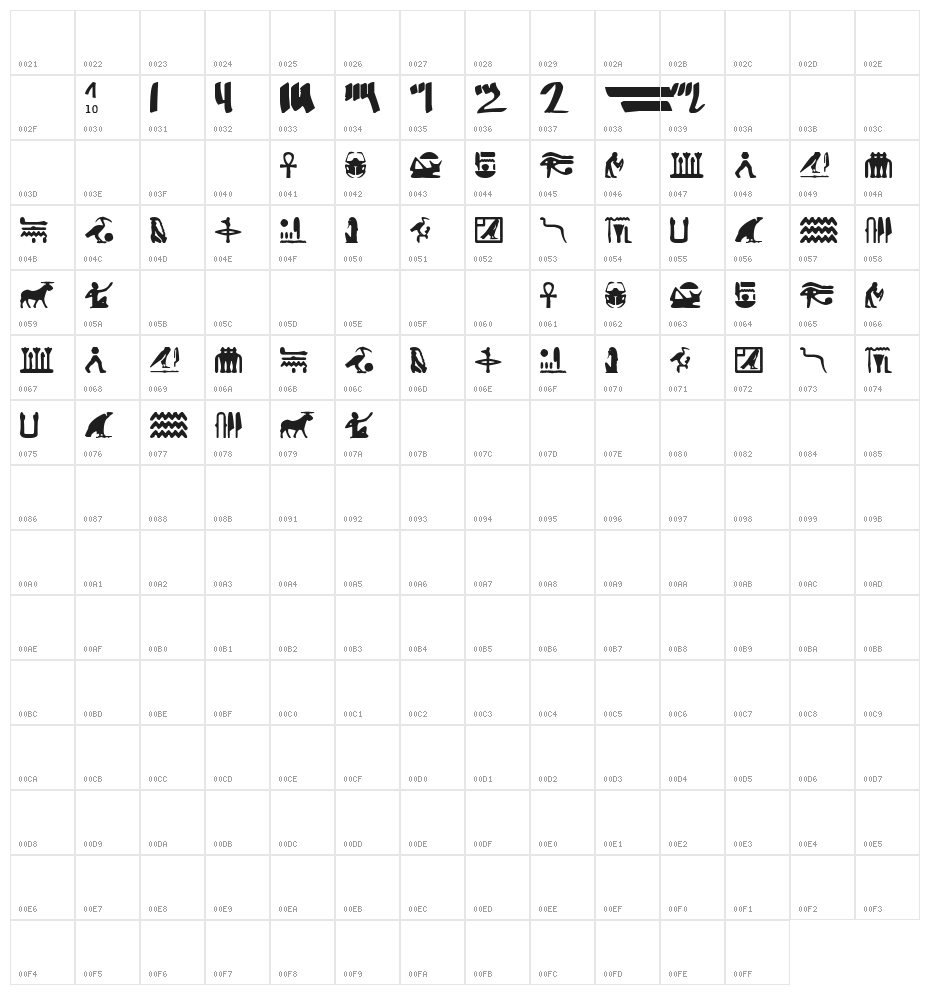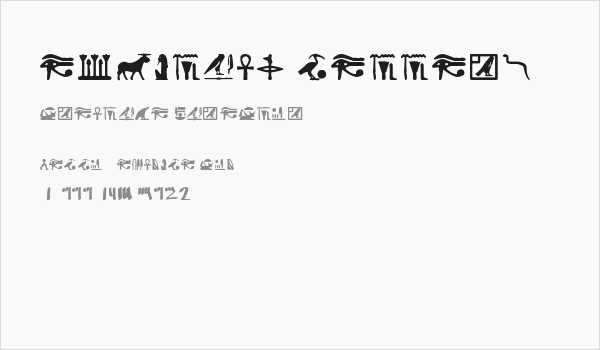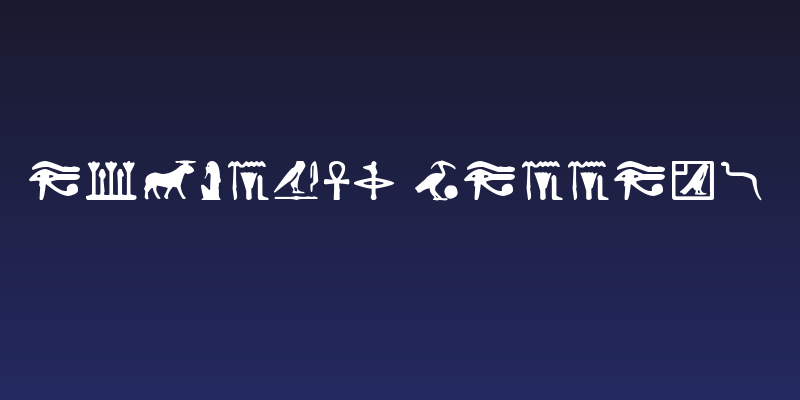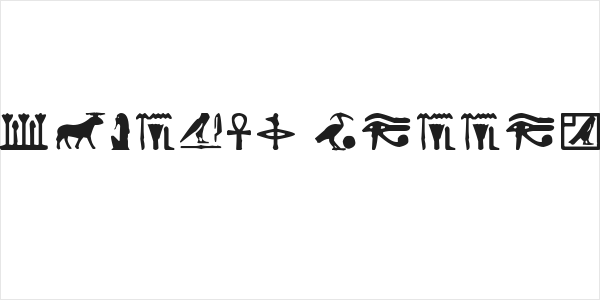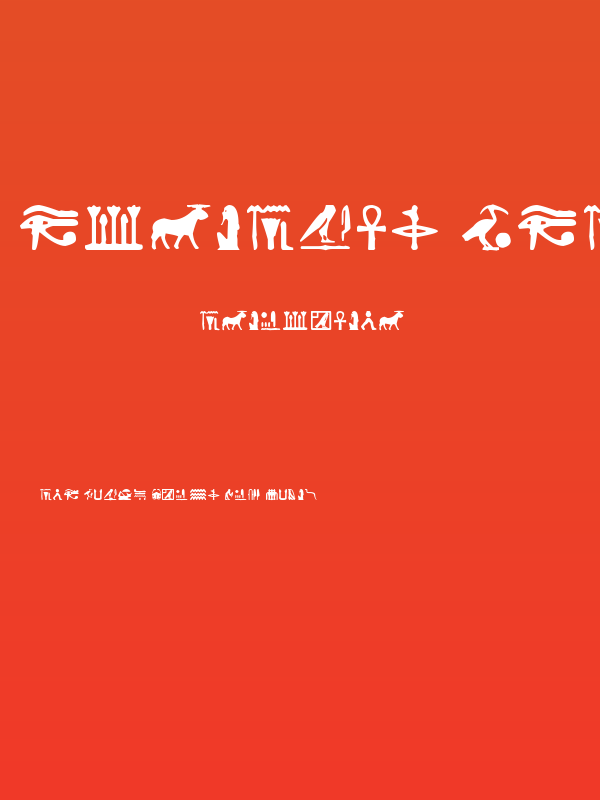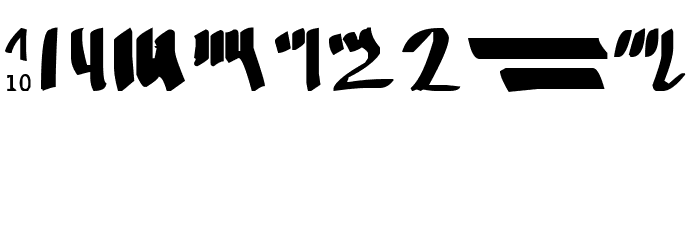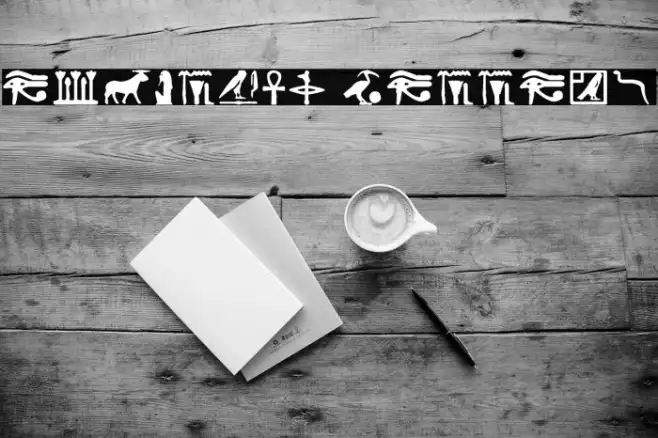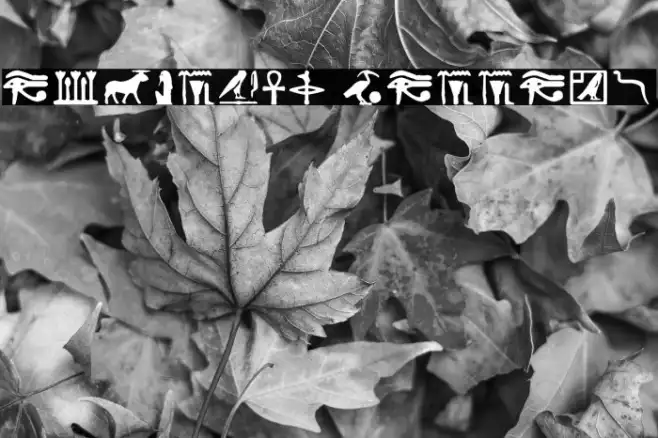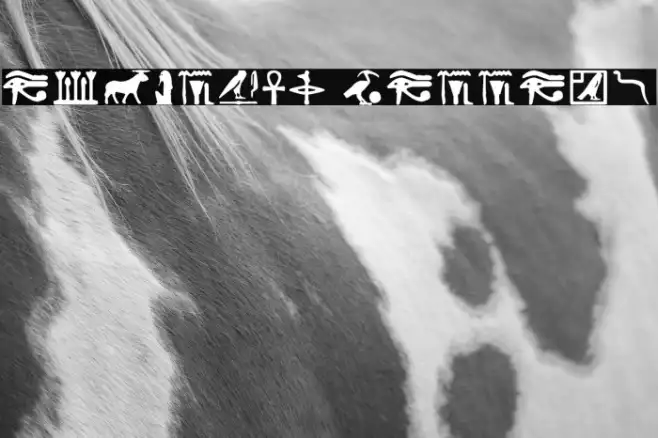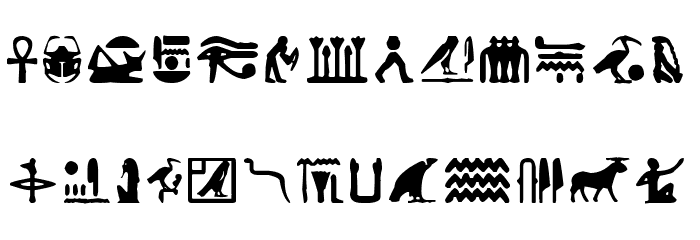
Egyptian Letters Font
Egyptian Letters Description
A decorative font mimicking ancient Egyptian hieroglyphs, featuring intricate pictorial symbols instead of standard Latin characters and numerals, with bold, solid black shapes and high visual complexity.
| Overall Style | Decorative, Ancient, Thematic |
| Use Case | Logos, Headlines, Themed graphics, Educational titles |
| Proposed Projects | Themed posters, educational materials, museum displays, historical or archaeological presentations, escape room graphics. |